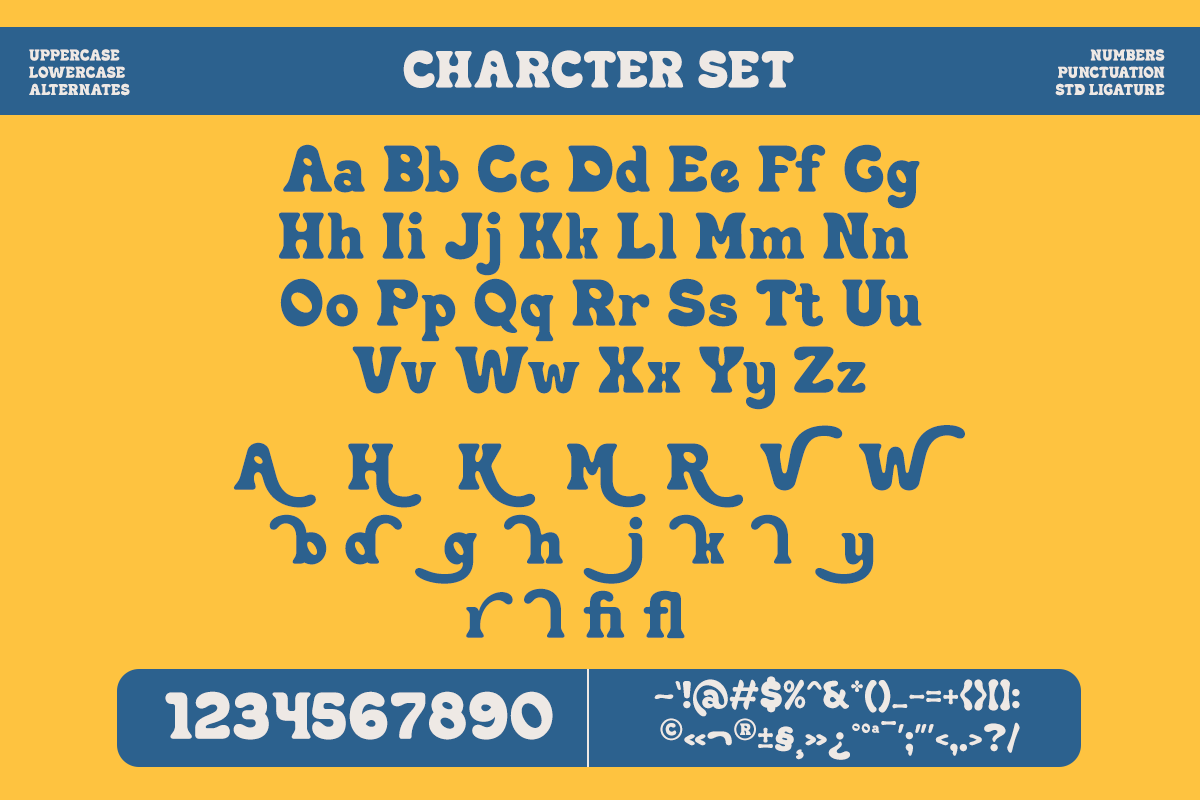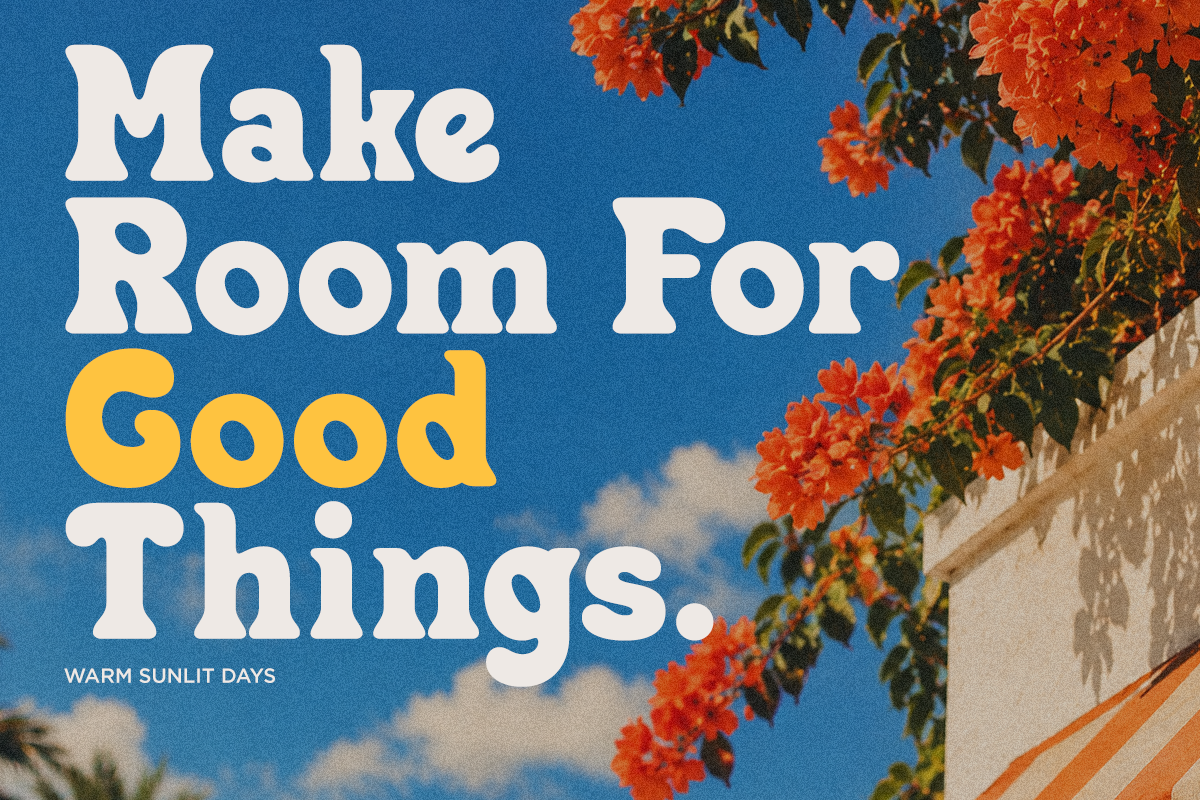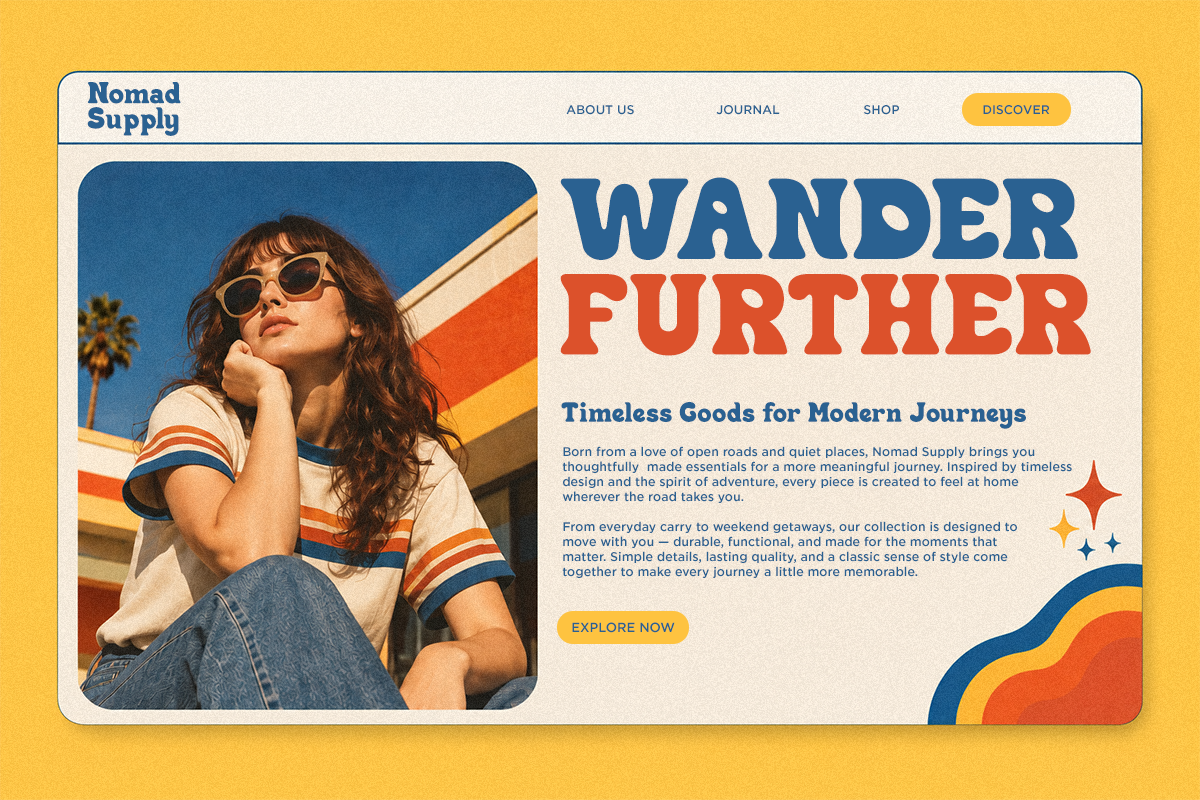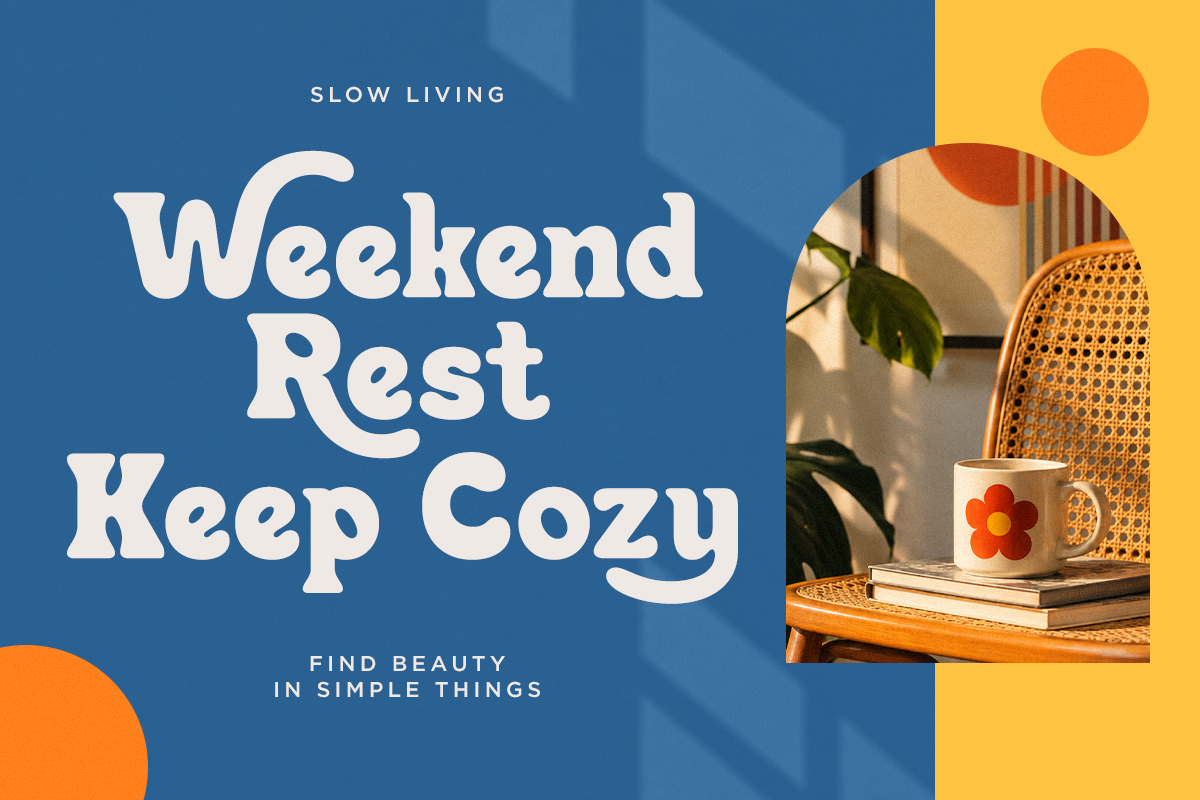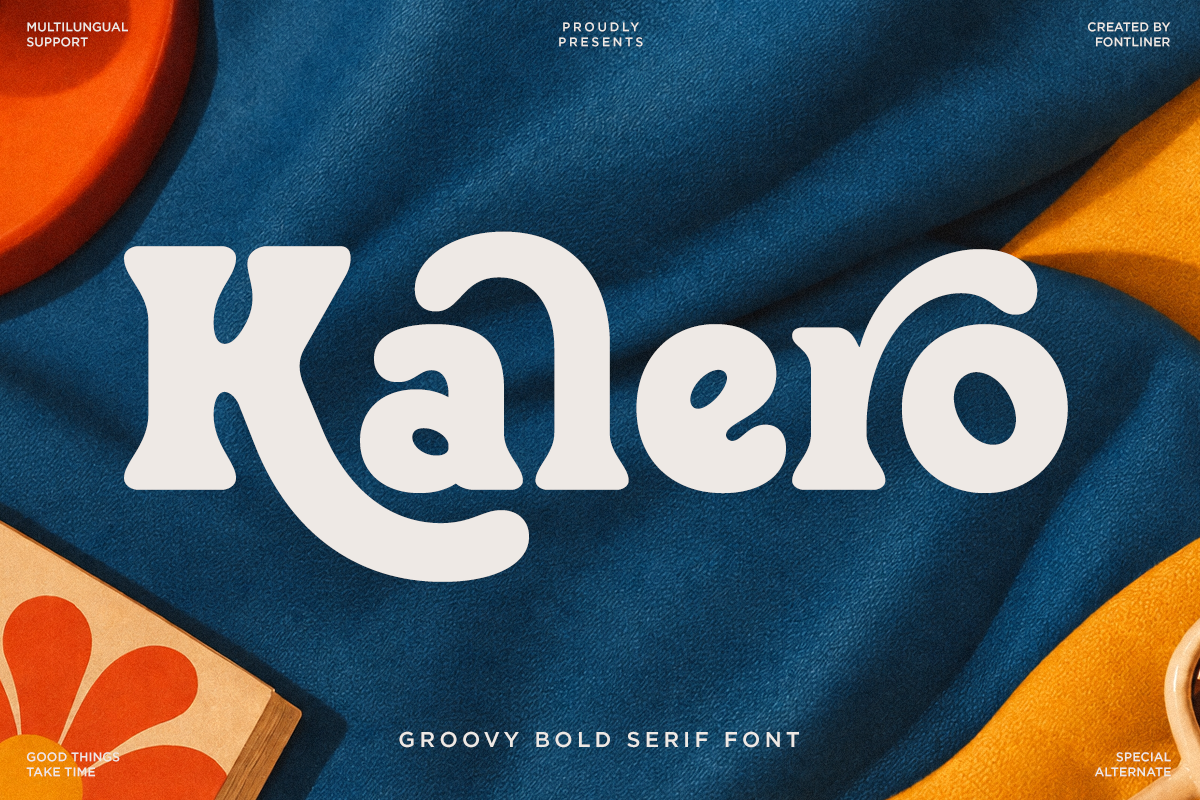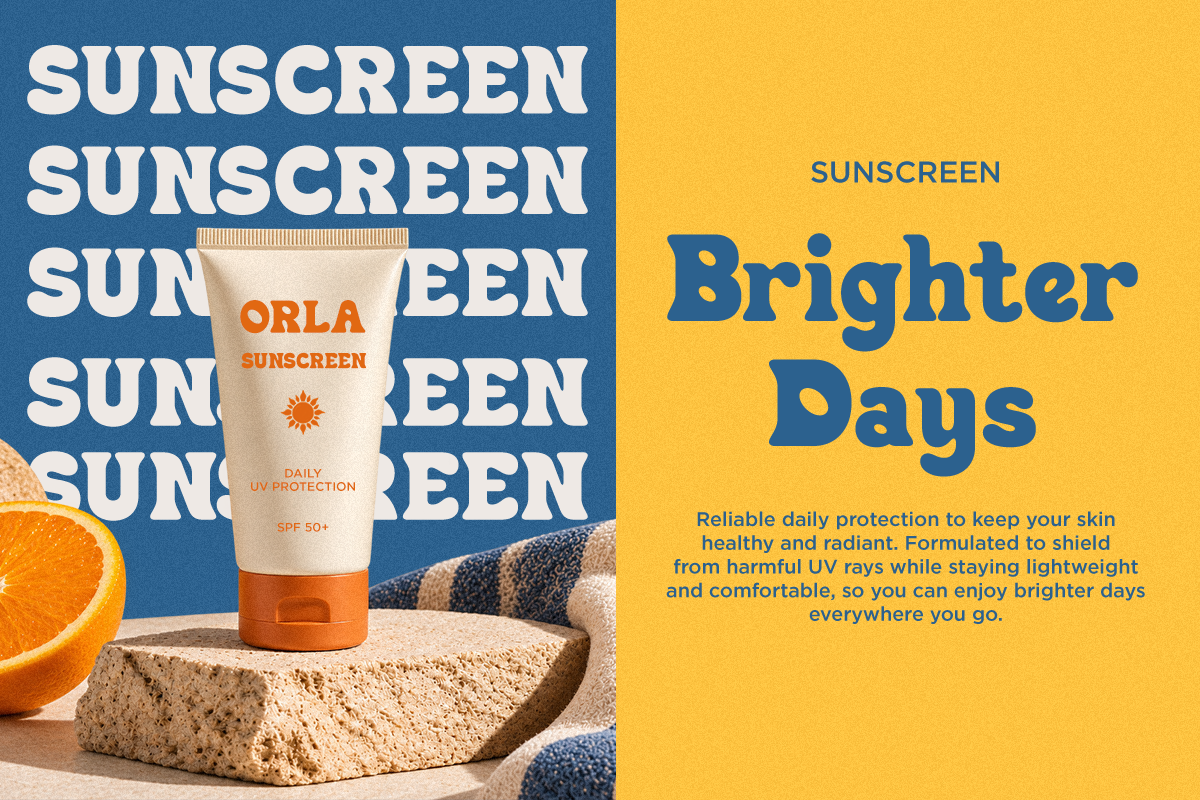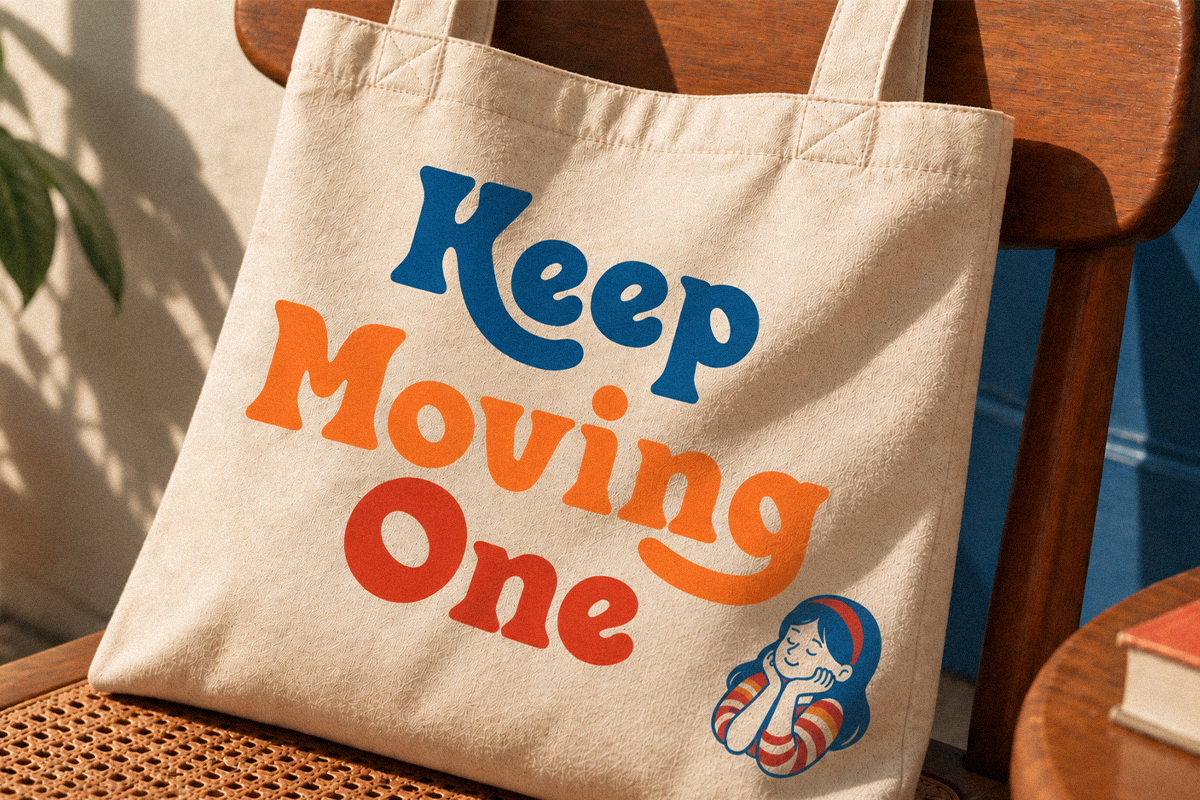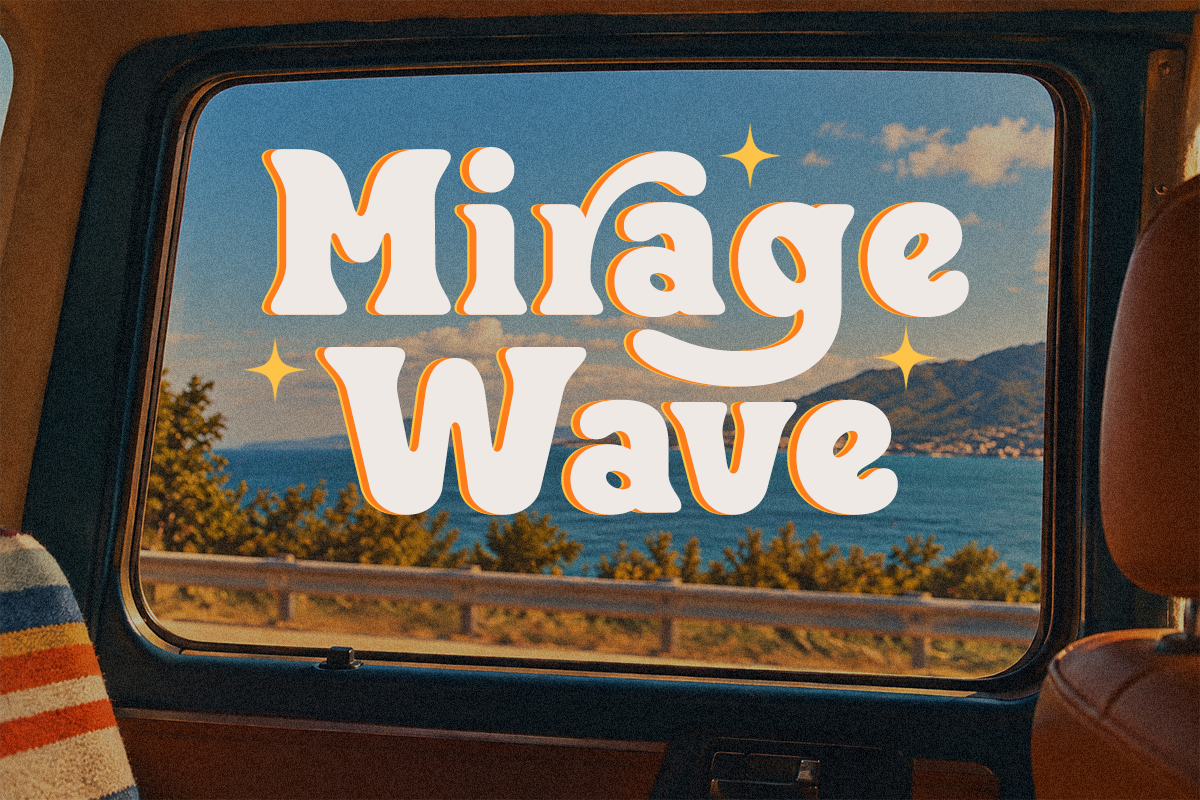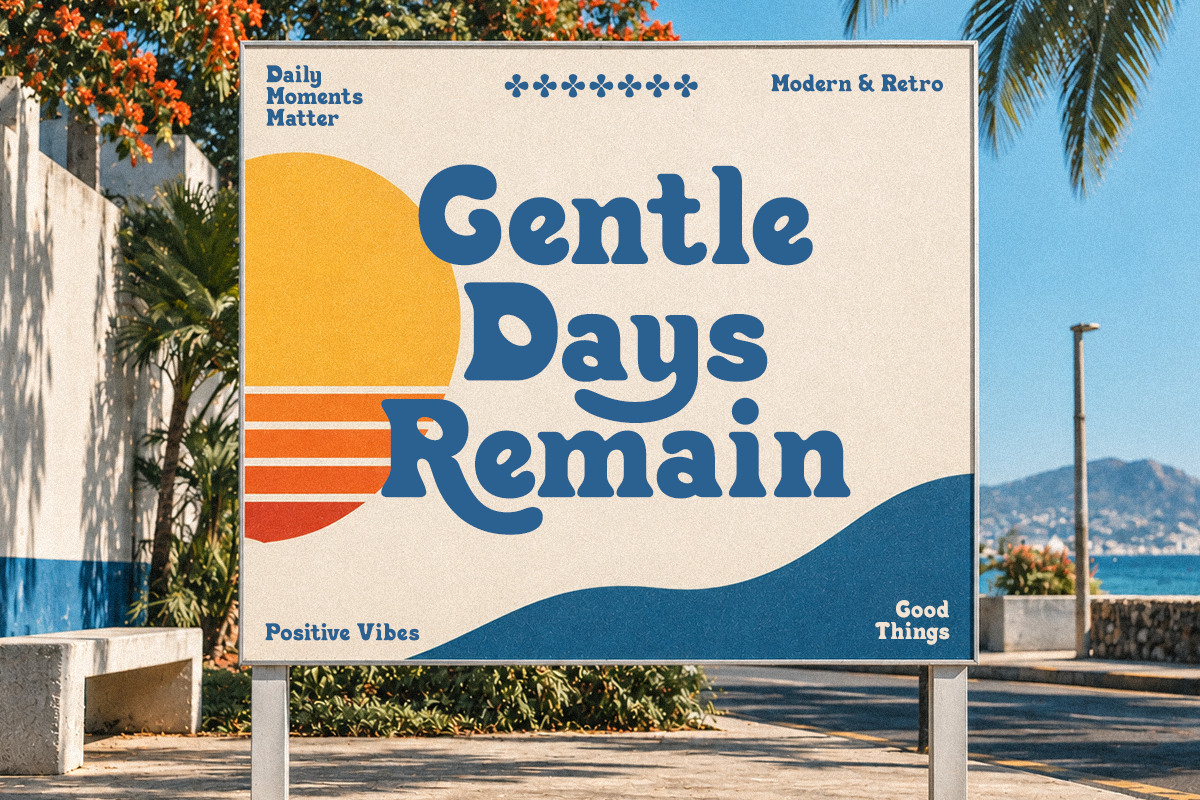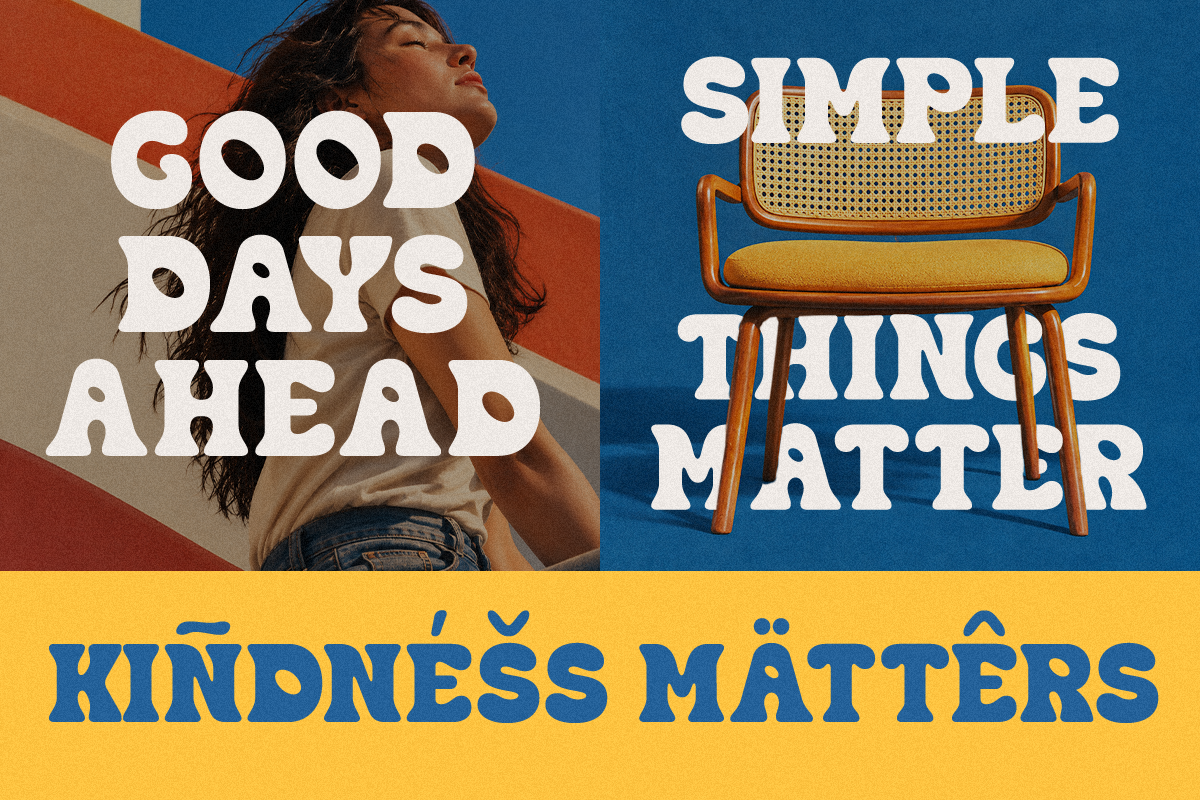
Kalero - Groovy Bold Retro Serif
Kalero is a groovy bold retro serif font designed to bring a playful, nostalgic, and expressive personality to modern creative projects. Its chunky letterforms, rounded curves, and distinctive serif details create a strong vintage-inspired look while keeping the typography bold, friendly, and highly readable.
Perfect for retro branding, vintage posters, packaging, lifestyle brands, food and beverage designs, summer campaigns, travel graphics, social media, logos, headlines, merchandise, and editorial layouts. Kalero works especially well for designs inspired by the 70s, groovy aesthetics, retro pop culture, colorful advertising, and nostalgic summer vibes.
With its bold display character and playful forms, Kalero is ideal for creating eye-catching headlines and memorable visual identities. Use it for posters, labels, product packaging, restaurant branding, stickers, postcards, album artwork, invitations, and promotional graphics. The font includes uppercase and lowercase letters, numerals, punctuation, and multilingual characters for versatile use across print and digital projects.
Regular and Italic
Special Alternates
Number, Symbol, and Punctuation